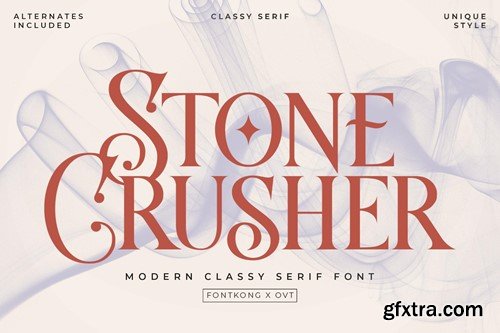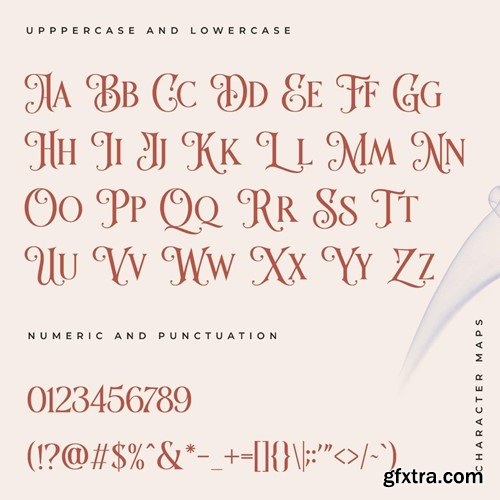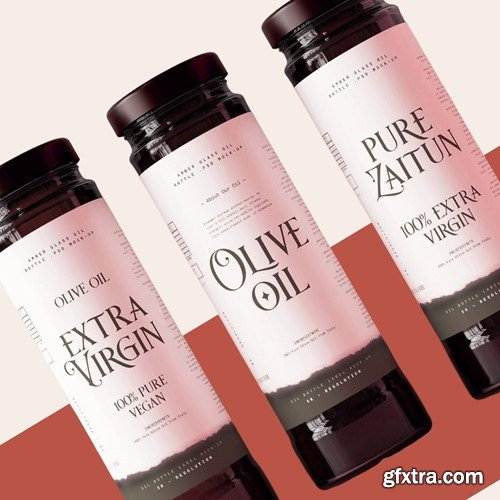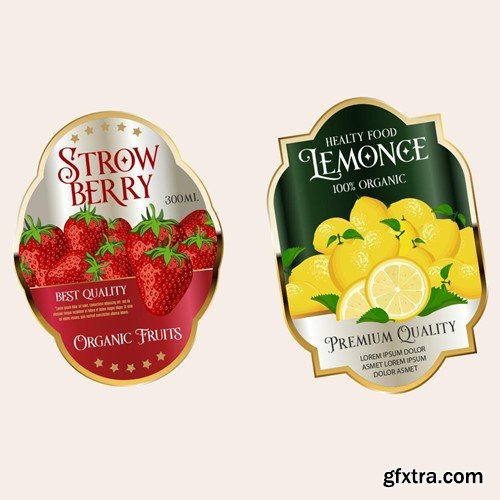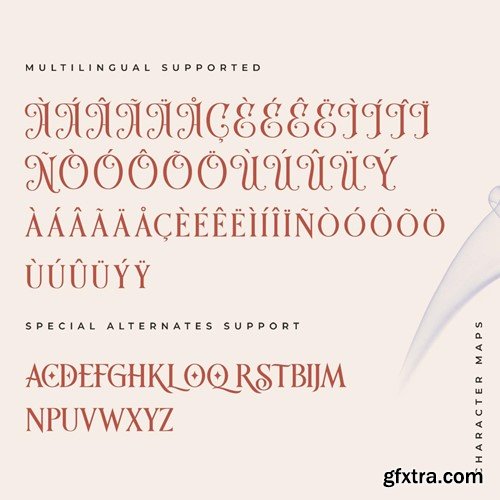
石 crusher - 现代简约衬线字体 QBUY46Z
Stone Crusher - Modern Classy Serif Font Introducing "Stone Crusher," a bold and modern serif font that combines classical elegance with a robust contemporary twist. Designed to make a strong visual impact, Stone Crusher offers designers the perfect tool for creating commanding and stylish text in a variety of settings. You will receive the font files in TTF, OTF, and WOFF formats With its striking thick serifs and sleek lines, Stone Crusher is ideal for headlines, titling, branding, and high-impact advertising campaigns. The font features a comprehensive set of characters, including uppercase and lowercase letters, numerals, punctuation, and extensive language support for diverse applications. Whether you're looking to create standout packaging, compelling promotional materials, or powerful editorial content, Stone Crusher delivers readability and style without compromise. Its versatile design ensures that your projects will not only grab attention but also hold it with sophistication and strength. Stone Crusher is your go-to serif font for making bold statements with a classic yet modern flair.